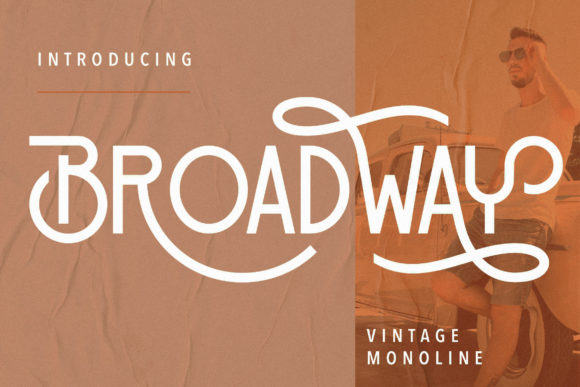
About the Broadway Font
The Broadway Font is here to transform your projects with its distinctive character and style. Broadway is an organic, retro styled display font. Featuring a cool and fresh vibe, this font will instantly fit both your formal and informal creations. Have fun with this beautiful font and explore its endless variations.